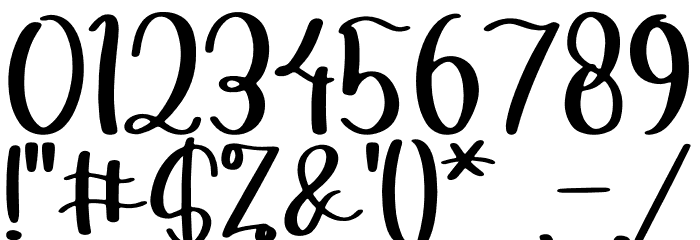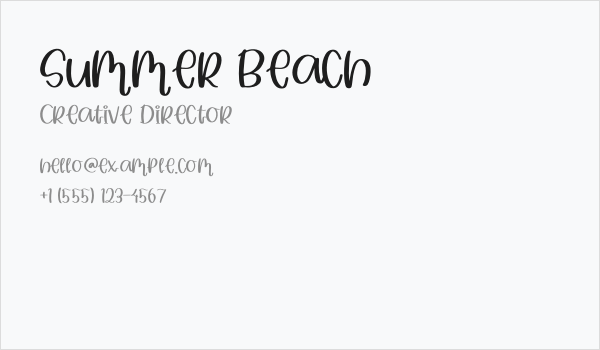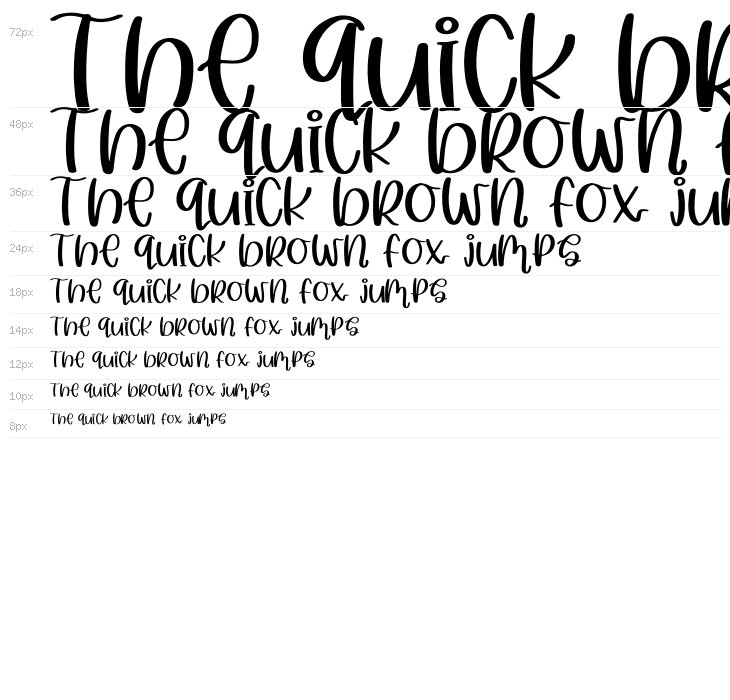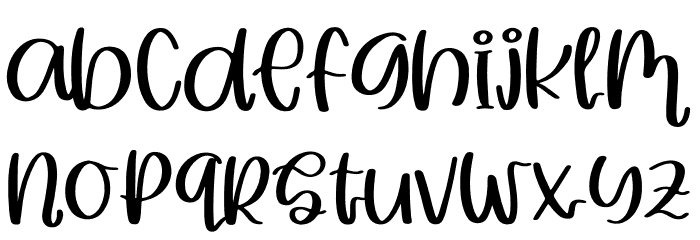
Summer Beach Font
Summer Beach Description
This playful and energetic font features a handwritten style with a casual, beachy vibe. The letters are bold and slightly irregular, giving them a lively and informal appearance. The strokes are smooth and rounded, with a slight tilt that adds to the relaxed feel. The uppercase and lowercase letters maintain a consistent style, with some letters featuring unique loops and swirls that enhance the font's charm. The numbers and special characters are equally expressive, making this font versatile for various creative projects.
| Proposed Projects | Ideal for summer-themed designs, greeting cards, posters, and social media graphics. |